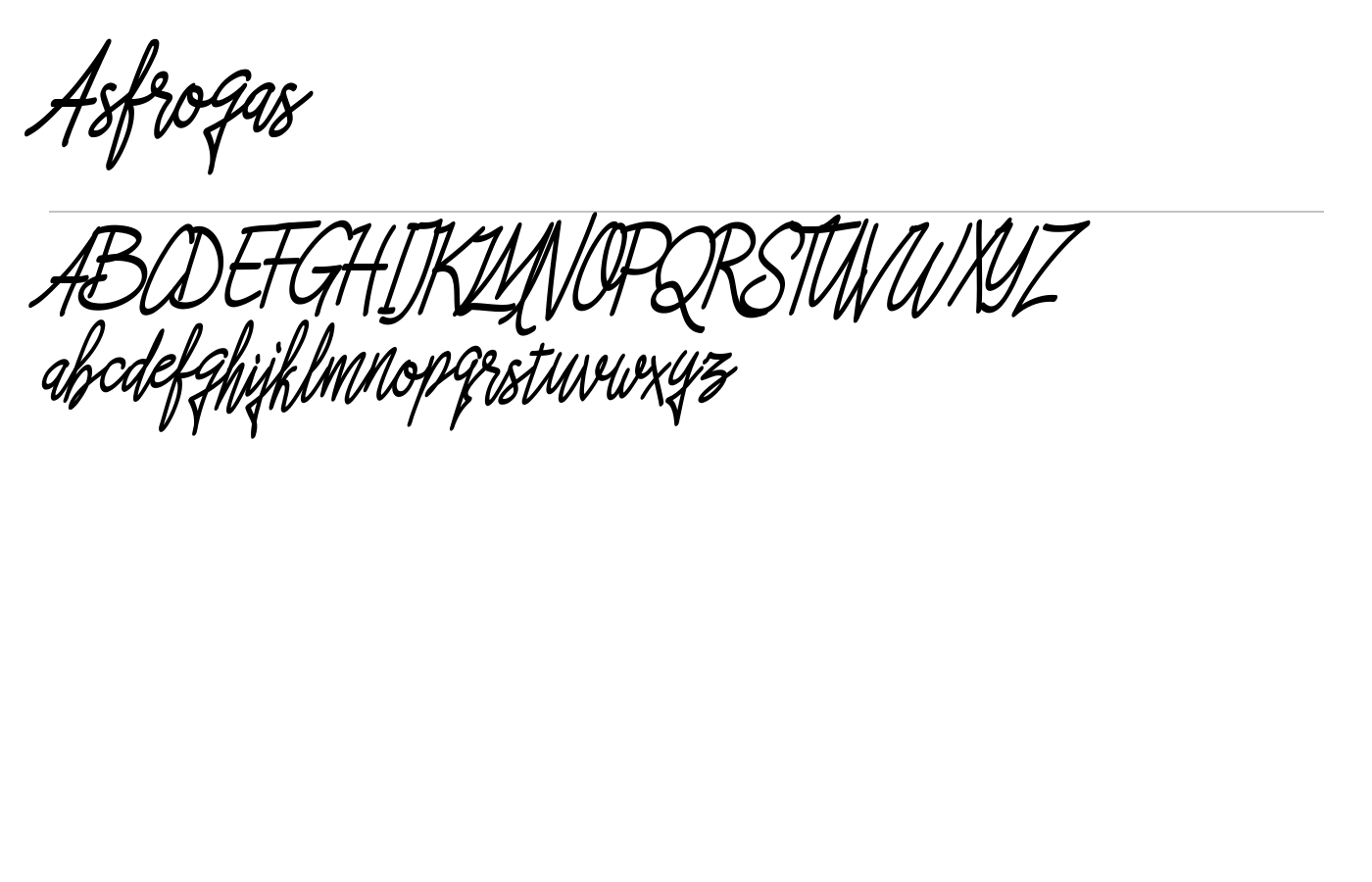
Asfrogas is a lively, handwritten script font with a tall, narrow structure and a casual, energetic feel. Its sharp, flowing strokes and irregular letterforms give it a dynamic, personal touch, making it ideal for creative branding, invitations, and expressive headlines where a unique, handwritten aesthetic is desired. This font works best when you want to add a spirited, artistic flair to your design without sacrificing readability.
Asfrogas Font
About Asfrogas Font
| Font family | Asfrogas Font |
| Designer | Alit Suarnegara |